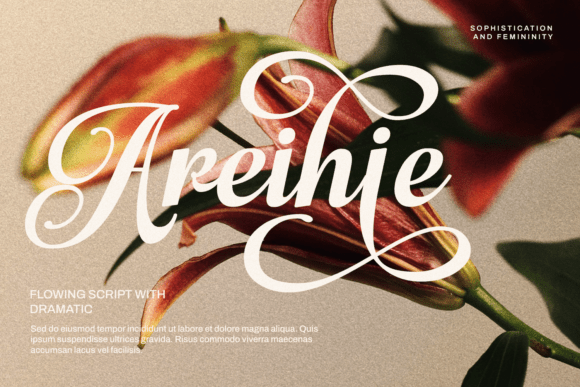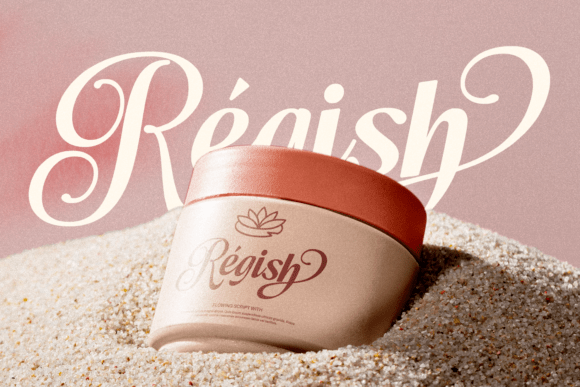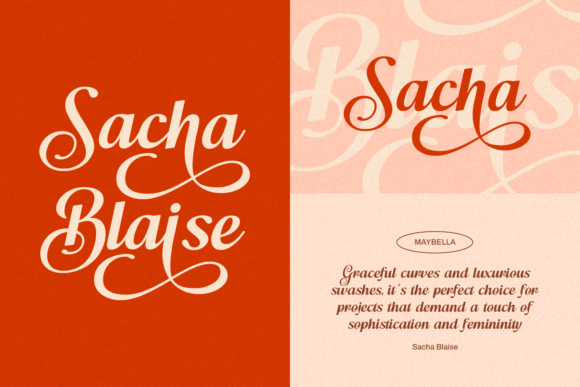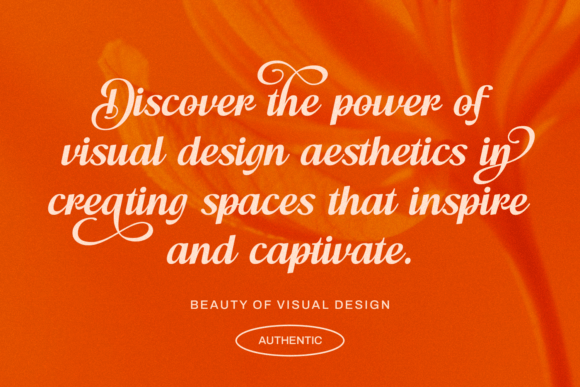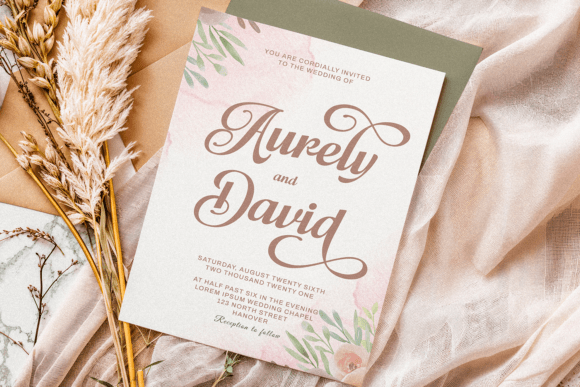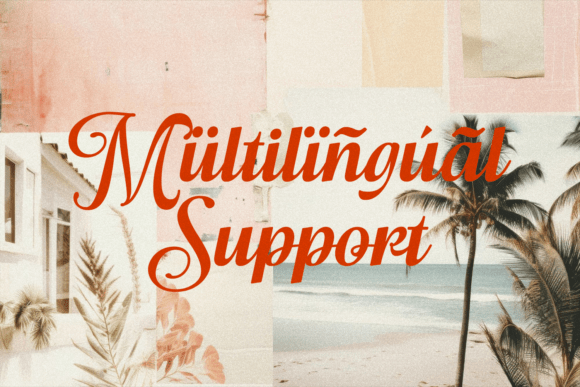
Introduction to Maybella Font
Have you ever stumbled upon a beautiful handwritten note in a vintage journal, and instantly felt a rush of creativity? For many designers, discovering the perfect font can be just as magical. Today, we’re excited to introduce you to Maybella Font, a charming script handwritten font that’s sure to bring elegance and warmth to any creative project.
With its fluid strokes and graceful curves, Maybella Font captures the essence of handwritten calligraphy, making it a perfect choice for festive and heartfelt themes. Whether you’re working on a wedding invitation, birthday card, or seasonal design, this versatile font is sure to elevate your project to the next level.
As a valuable resource for designers, Maybella Font offers endless possibilities for customization and beautification. Its high-quality design, complete with alternative swashes and ligatures, allows for dynamic typography that can be tailored to suit any mood or concept. And with a transparent background, it’s easy to use as a free download for your next creative project.
Key Features of Maybella Font
- Unique, elegant script font with a transparent background for versatile use
- Maybella Font is ideal for wedding invitations, social media graphics, and other design projects requiring a touch of sophistication
Honest Review: Maybella Font
I recently stumbled upon the Maybella Font and was excited to give it a try. As a designer, I’m always on the lookout for high-quality fonts that can elevate my creative projects.
One of the things that works well with the Maybella Font is its versatility. It’s available for free download, which is a major plus, and it comes in a variety of weights and styles. This makes it easy to use in a range of design contexts, from headlines to body text.
- ✨ Translucent background capabilities
- ✨ High-quality design resource
- ✨ Easy to use in various design contexts
However, I did encounter a few limitations with the Maybella Font. The font is not suitable for large blocks of text, as it can become difficult to read. Additionally, the font’s design is quite delicate, so it may not be the best choice for projects that require a more bold or dramatic look.
Overall, I’m impressed with the Maybella Font. While it has its limitations, it’s a great resource for designers who need a high-quality font for their creative projects.
Tips for Getting the Most Out of Maybella Font
Use the Maybella Font with a transparent background to create a clean and modern design. Experiment with different font sizes and styles to add visual interest to your creative project. You can also use the font in combination with other design elements, such as images and graphics, to create a unique and eye-catching visual.
Common Use Cases for Maybella Font
The Maybella Font is suitable for a wide range of creative projects, including logos, branding materials, and marketing materials. It’s also great for creating a consistent and professional-looking design for presentations, documents, and websites.